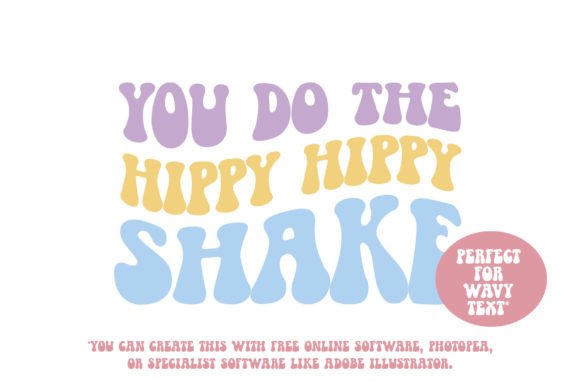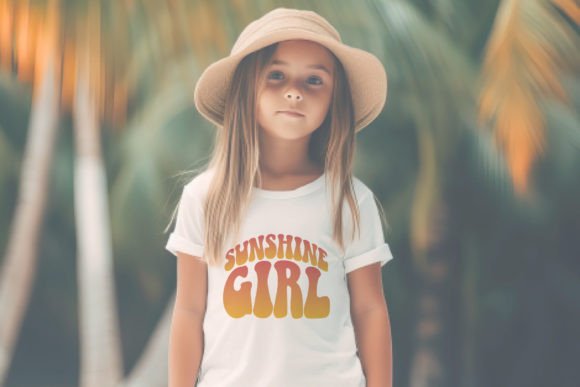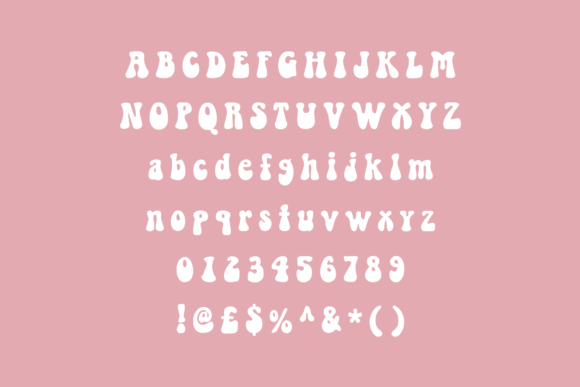
Sixties Hippie Font
Sixties Hippie Font | a groovy hippy 60s retro font!The best hippie font, the best sixties font, the best retro font! A wonderfully warm, vintage font perfect for psychedelic and groovy designs!This font is great for adding a touch of retro-inspired fun to your designs. It works great when warped into waves (using your preferred software) or simply arching or arcing words. BUT… if you can’t do that, this groovy font looks amazing as it is!A super retro font for t-shirt designs, mug designs …or whatever else you are creating or crafting.It’s bold, it’s fun …it’s the best Sixties Hippie Font out there!It also has nice clean, simple nodes for cutting and crafting in software such as Cricut Design Space or Silhouette Studio. Playful and strong, you can create a real impact with this psychedelic groovy font. Perfect for kids and children’s items yet cool and unique for an older demographic on all products. It has loads of character! The best groovy font there is.